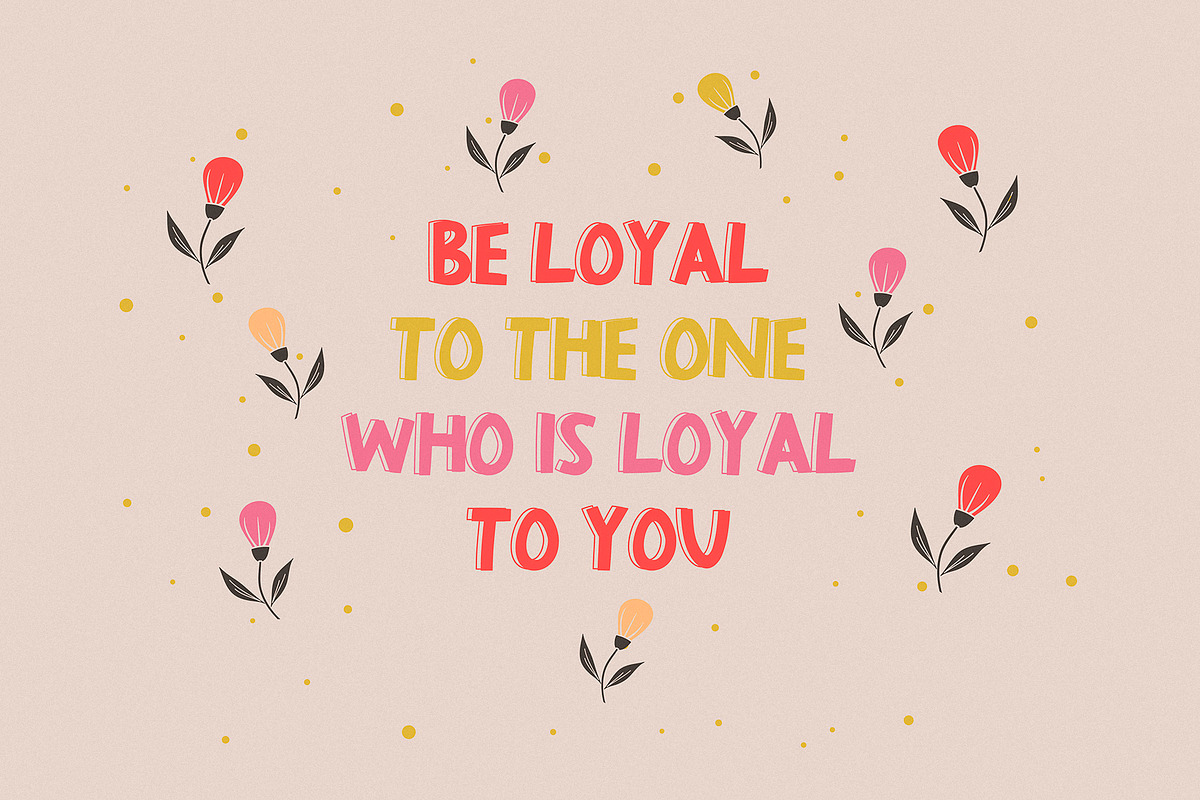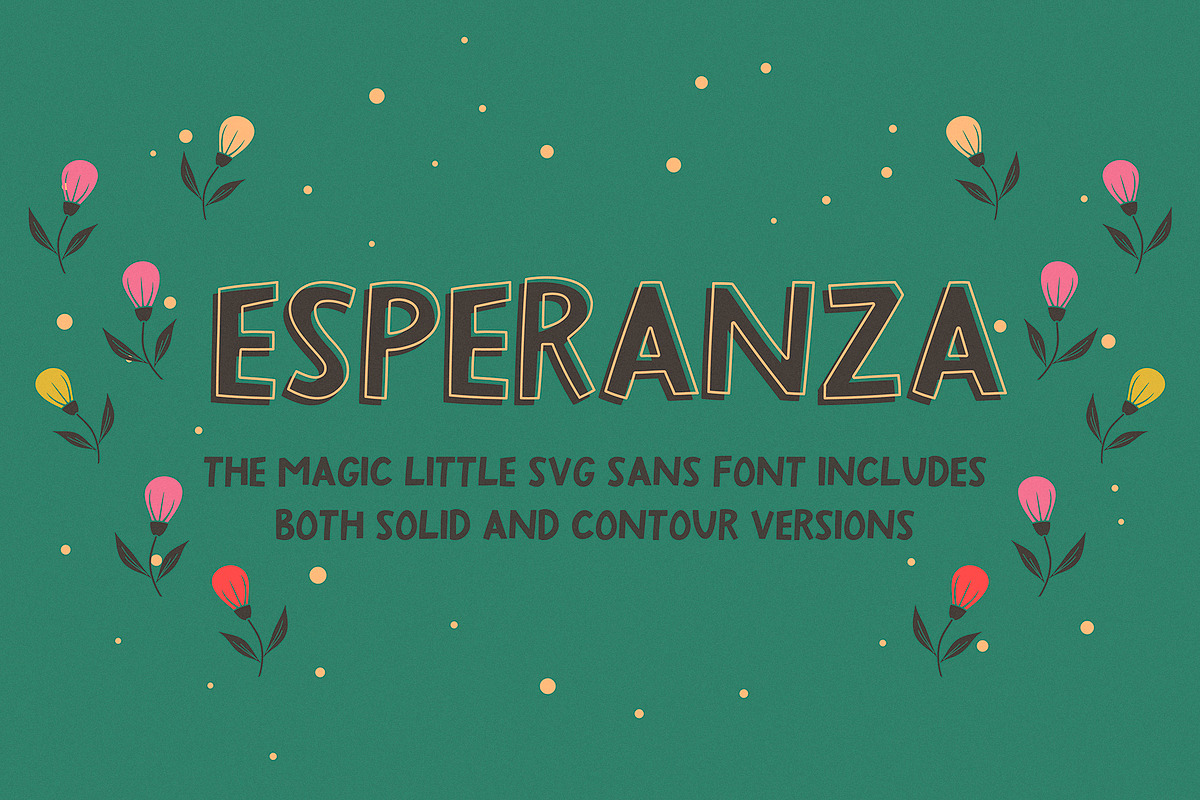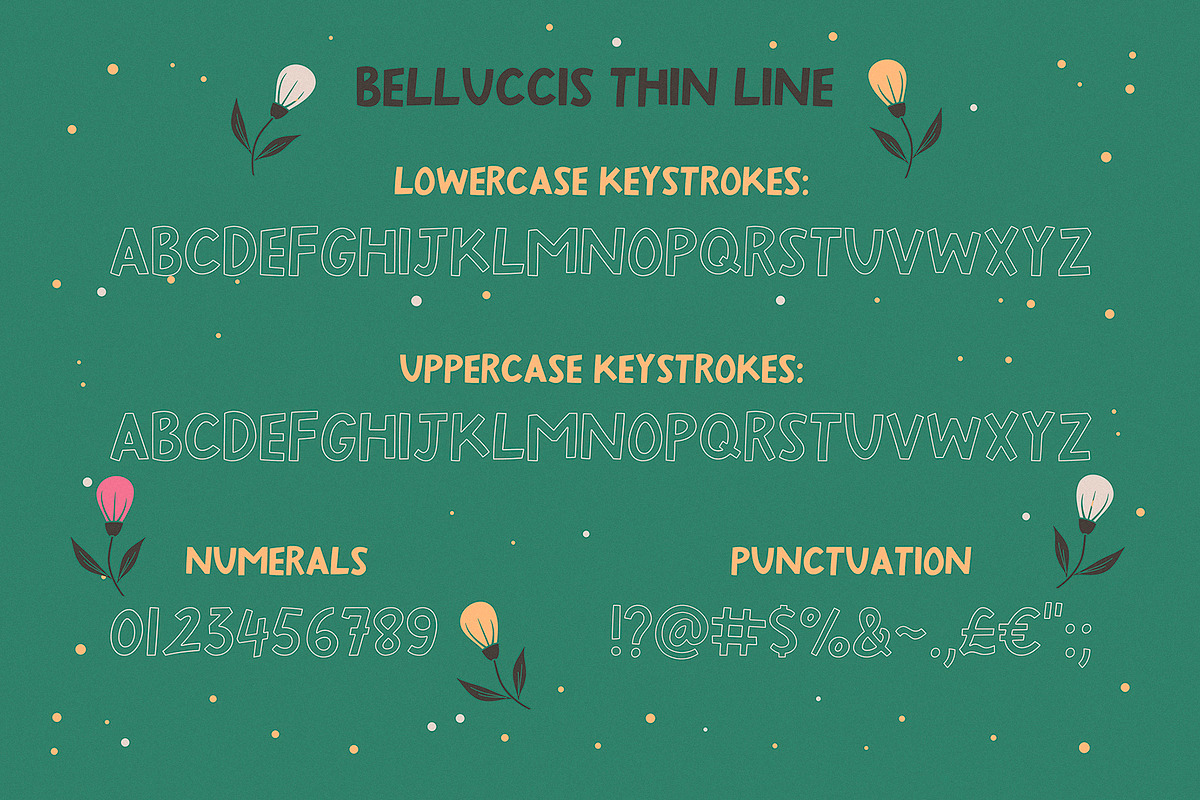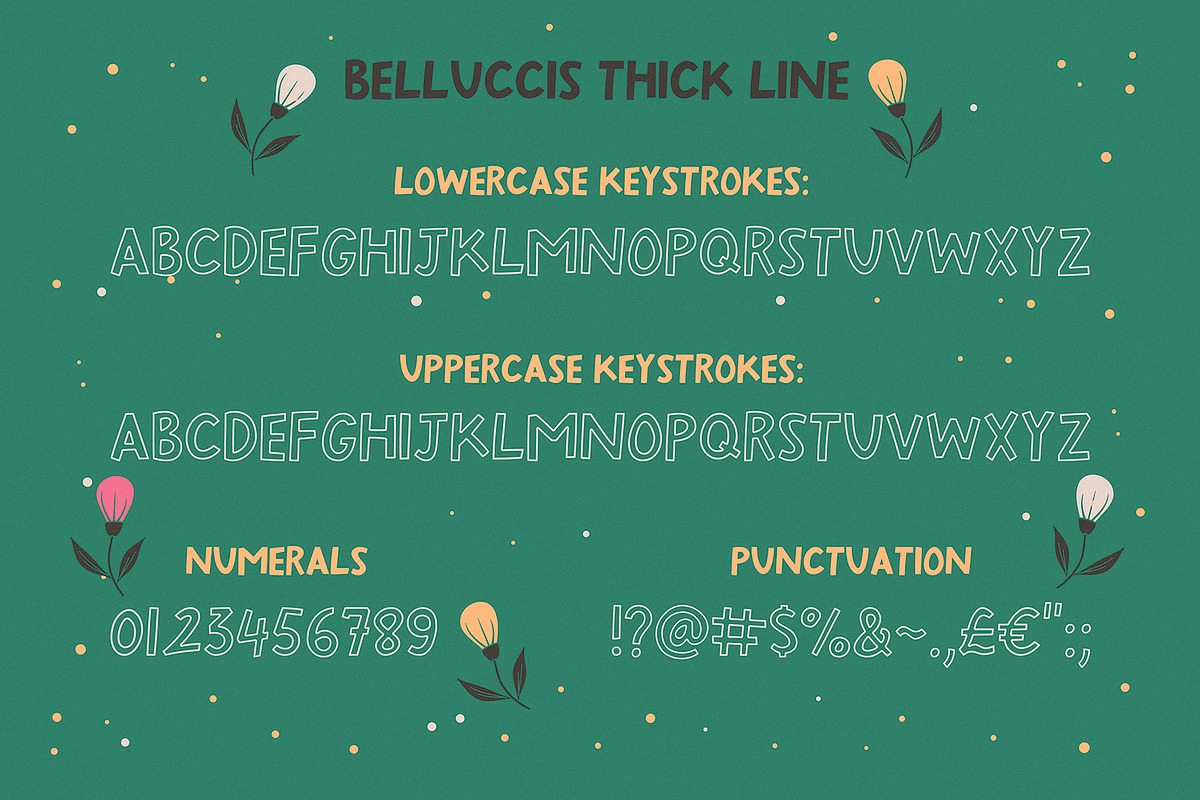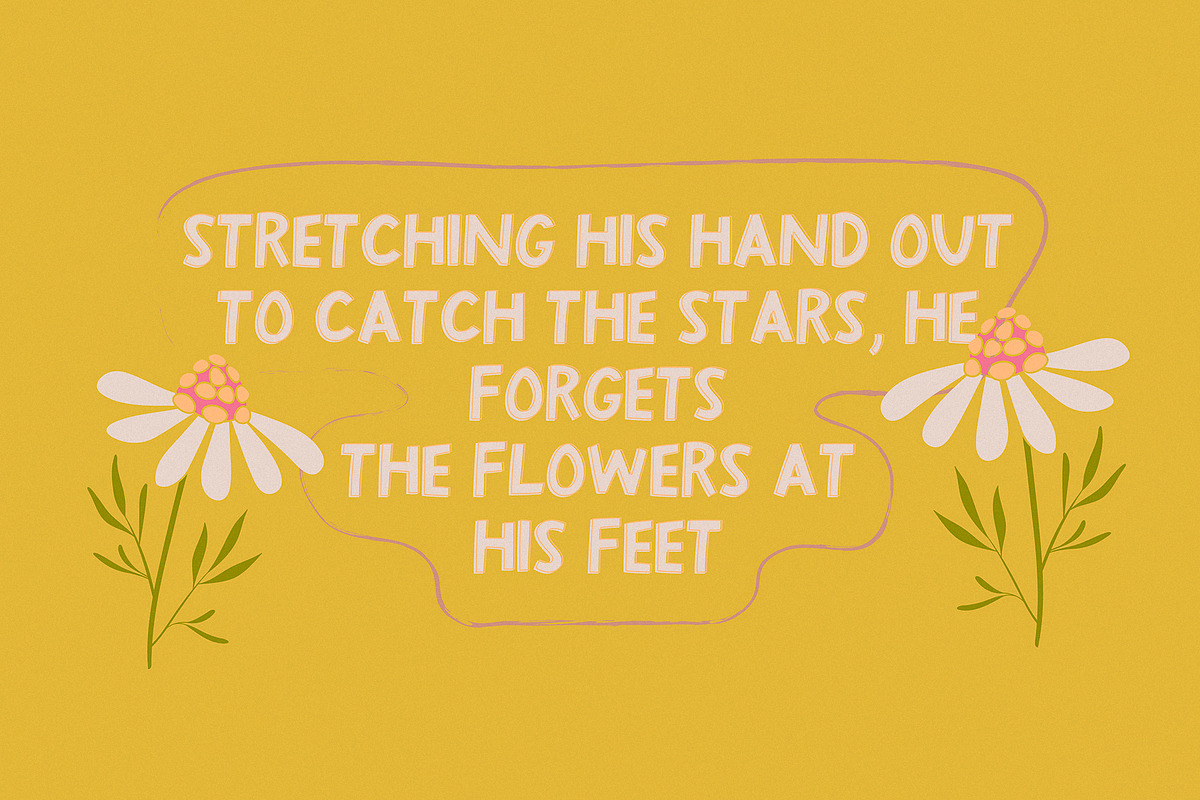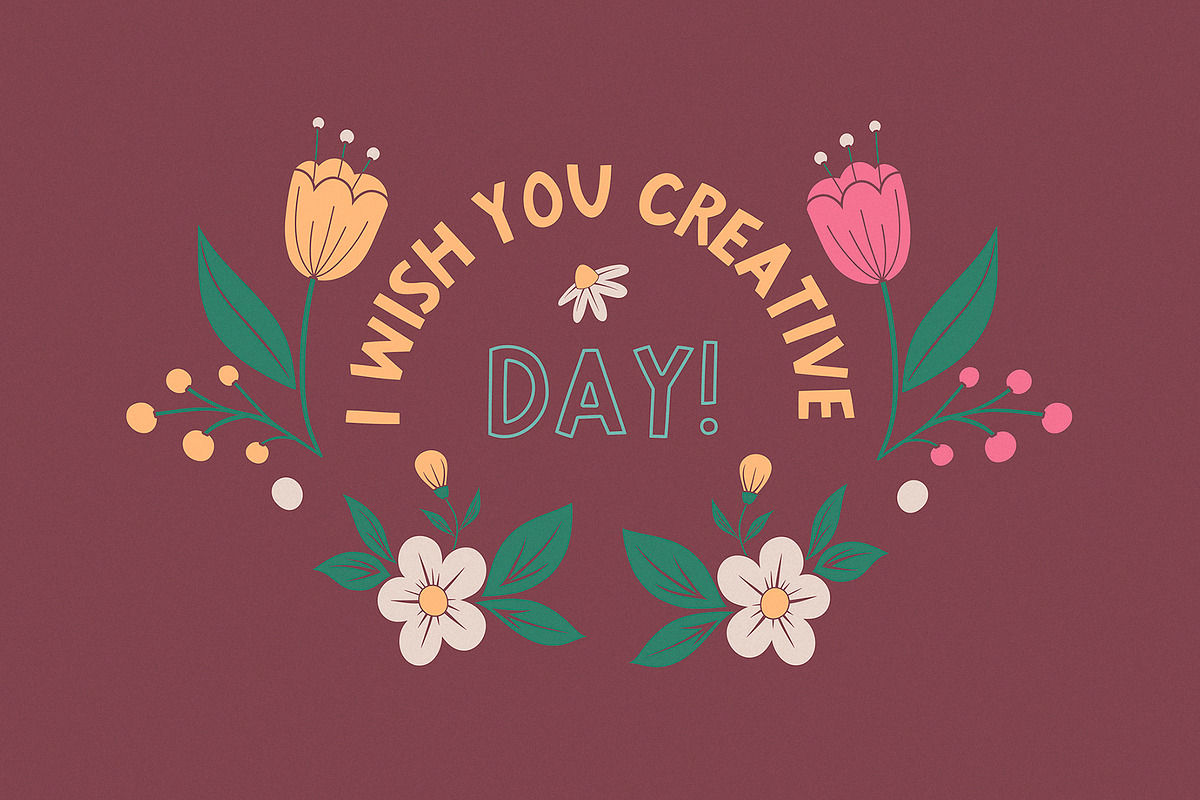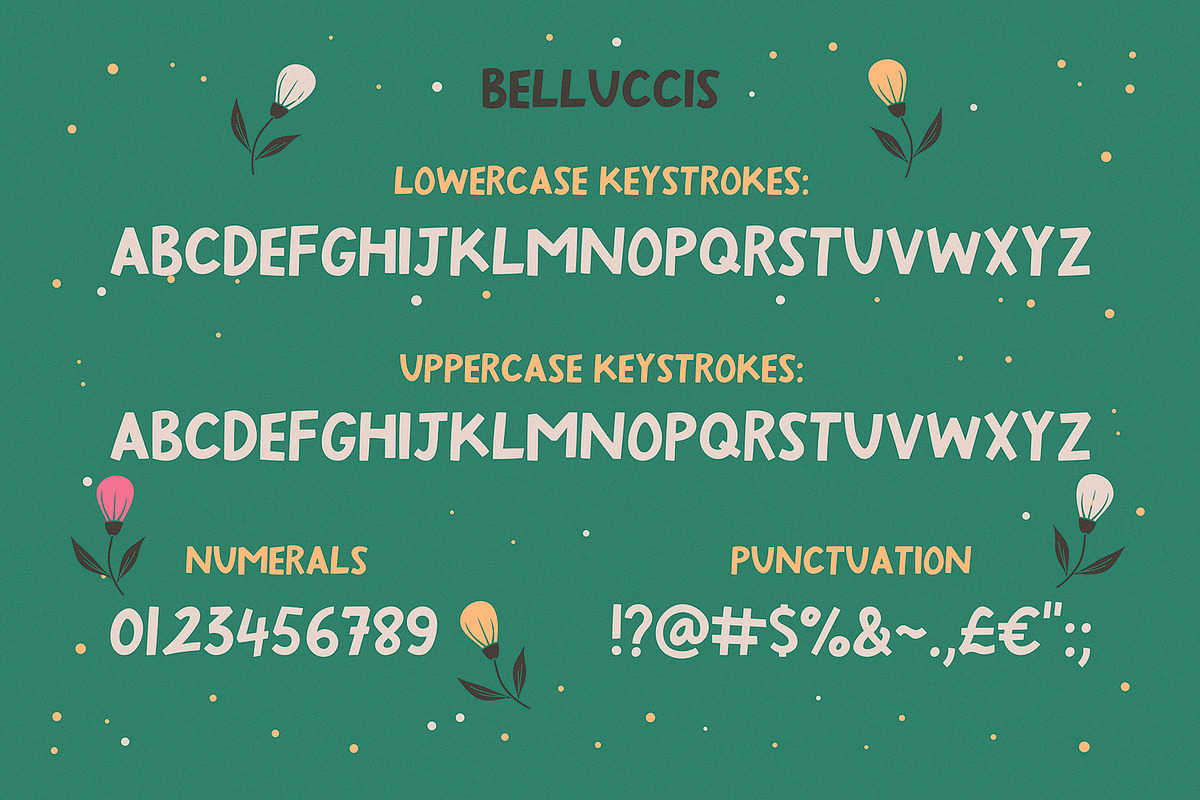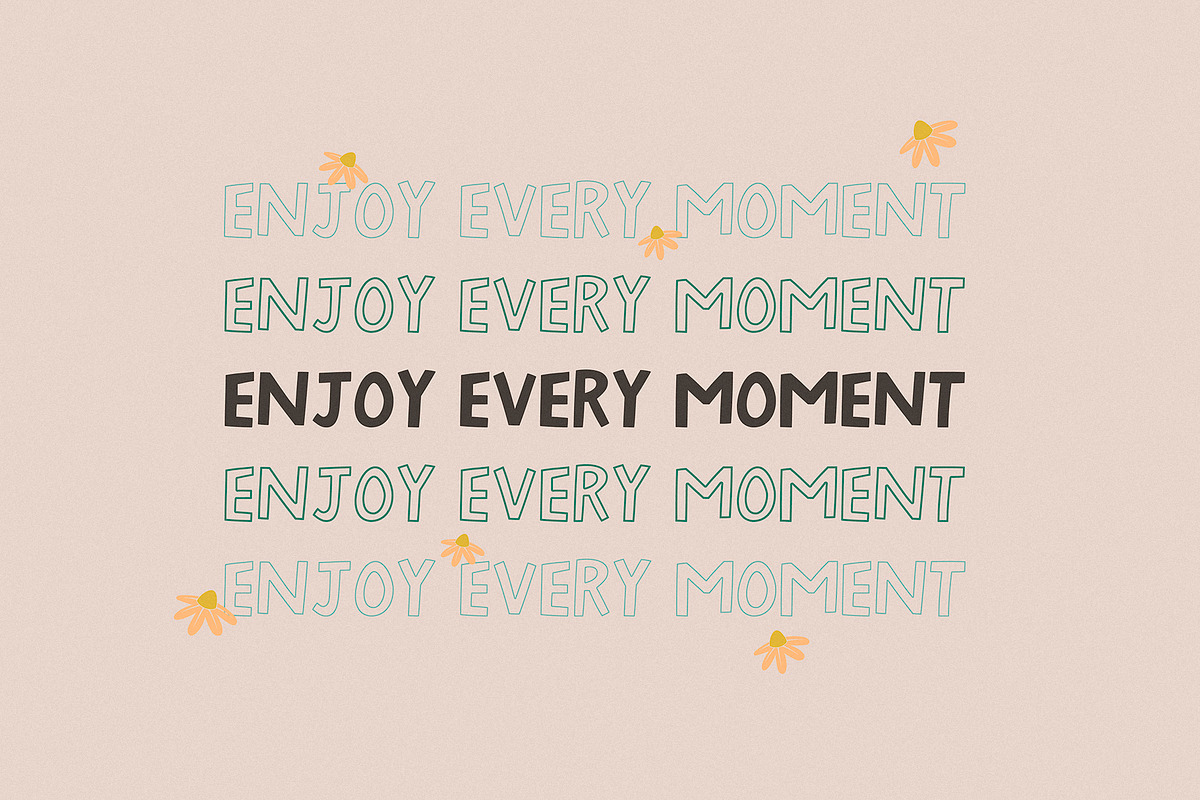
Esperanza - SVG & Regular font
Say hello to Esperanza :) I have prepared for you an extremely versatile font collection - perfect for experimenting with bright and modern typographic designs in any modern design!!
3 quivering, playful handwritten SVG fonts, each carefully designed to complement each other in a natural way!! Great for outstanding quotes, playful branding, children's books, fancy greeting cards and more!